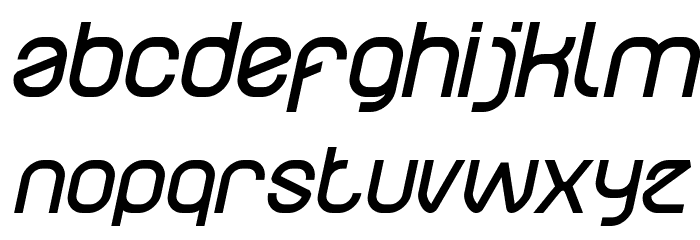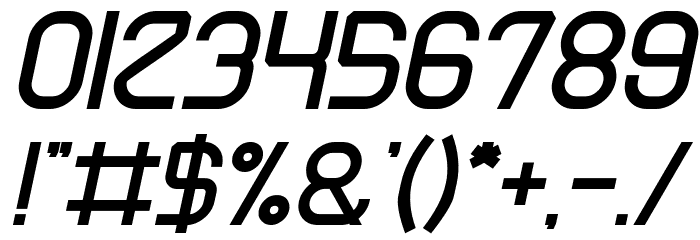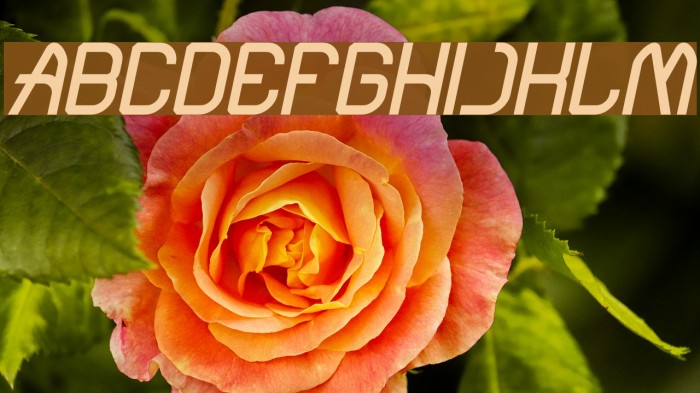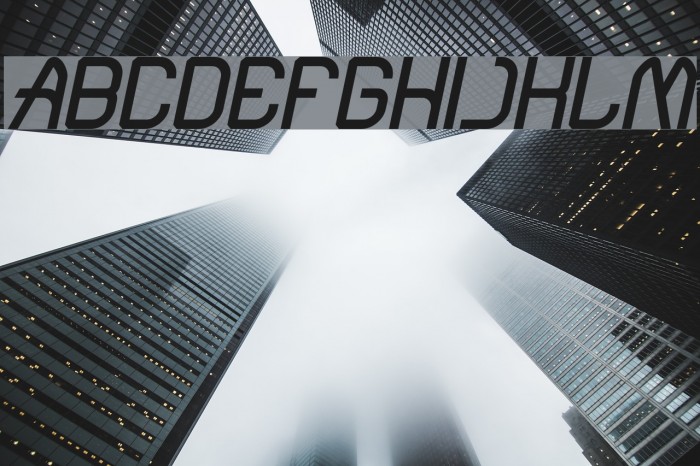
Electro Static Rain Bold Italic Font
This font features a bold and italicized style with a futuristic and dynamic appearance. The characters are slightly slanted, giving a sense of motion and energy. The strokes are consistent in thickness, providing a uniform look across all characters. The design incorporates a modern aesthetic with a touch of technological influence, making it suitable for contemporary projects. The uppercase letters are distinct with sharp angles and clean lines, while the lowercase letters maintain a similar style with a slightly softer approach. Numbers and special characters follow the same design principles, ensuring cohesion throughout the font.
- Proposed Projects: Ideal for technology branding, sci-fi posters, video game titles, and modern advertising.